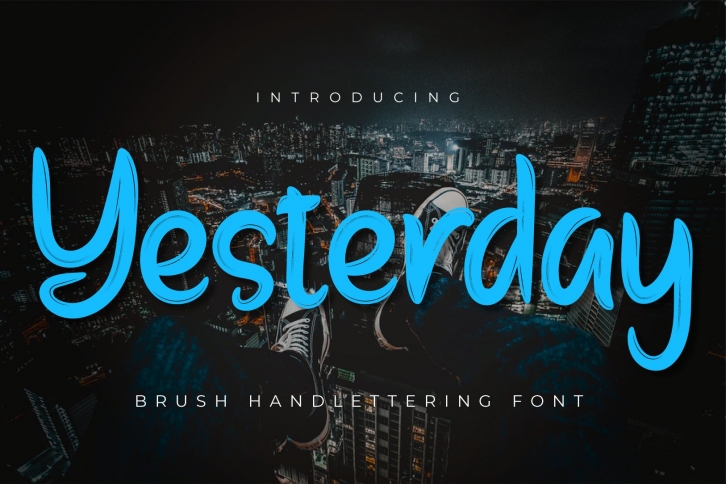
Yesterday is a beautiful font that was designed by twinlettertype. It's a great choice for designers and creatives who need such a font. It was released on April 11, 2021 and the file size is 14.34 MB. Yesterday may give a more youthful, expressive and casual look to your project. It is a very beautiful, refined, elegant, and high-quality font.